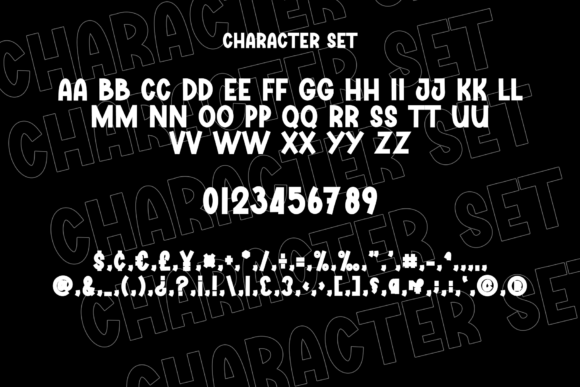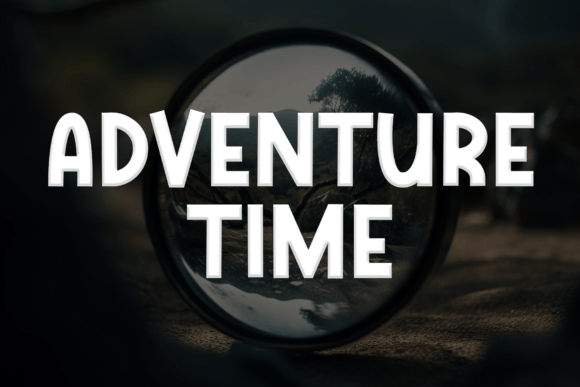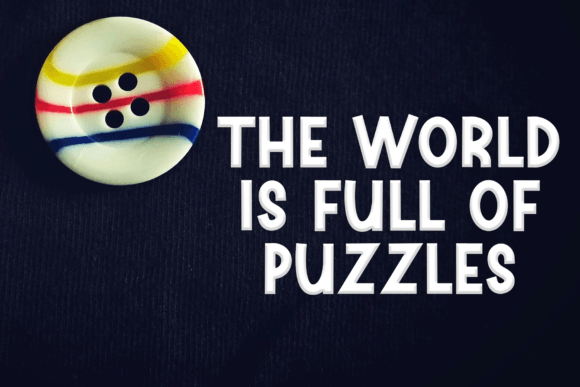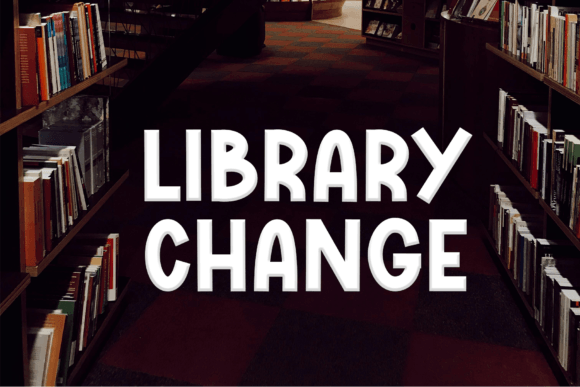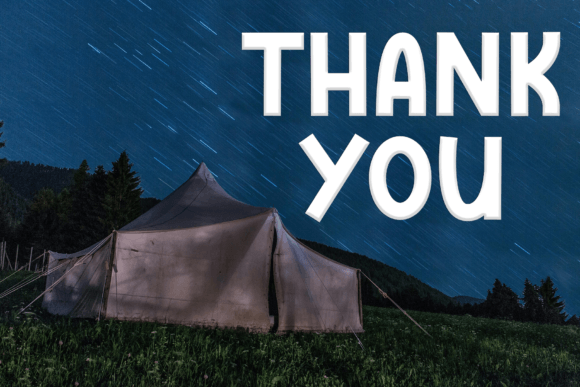
Introducing Bold Type Font: The Perfect Choice for Cheerful Designs
Are you looking for a font that can add a touch of fun and quirkiness to your designs? Look no further than Bold Type Font! This display font is perfect for creating cheerful and eye-catching designs that are sure to grab attention. In this article, we’ll take a closer look at Bold Type Font and explore its features, benefits, and uses.
What is Bold Type Font?
Bold Type Font is a fun and quirky display font that’s designed to add a touch of personality to your designs. It’s perfect for creating cheerful and upbeat designs that are suitable for a wide range of applications, from children’s themed designs to posters, flyers, and social media graphics.
One of the standout features of Bold Type Font is its unique and playful style. The font features bold lines, rounded edges, and a carefree vibe that’s sure to appeal to designers and crafters who want to create fun and engaging designs.
Key Features of Bold Type Font
So, what makes Bold Type Font so special? Here are some of its key features:
- PUA Encoded: Bold Type Font is PUA (Private Use Area) encoded, which means you can access all of the amazing glyphs and ligatures with ease. This makes it easy to create complex and visually appealing designs.
- Fun and Quirky: The font features a fun and quirky style that’s perfect for creating cheerful and upbeat designs.
- Children’s Themed Designs: Bold Type Font is especially suitable for children’s themed designs, especially when combined with bright colors.
Benefits of Using Bold Type Font
So, why should you choose Bold Type Font for your designs? Here are some of the benefits of using this font:
- Adds Personality: Bold Type Font adds a touch of personality to your designs, making them stand out from the crowd.
- Perfect for Children’s Designs: The font is especially suitable for children’s themed designs, making it a great choice for designers who create materials for kids.
- Easy to Read: Despite its bold and playful style, Bold Type Font is easy to read, making it perfect for creating designs that need to communicate a message.
- Versatile: The font can be used for a wide range of applications, from posters and flyers to social media graphics and more.
Uses of Bold Type Font
So, what can you use Bold Type Font for? Here are some ideas:
- Children’s Party Invitations: Create fun and colorful party invitations that are sure to delight kids and parents alike.
- Social Media Graphics: Use Bold Type Font to create eye-catching social media graphics that stand out from the crowd.
- Posters and Flyers: Create bold and attention-grabbing posters and flyers that promote a product, service, or event.
- Crafting Projects: Use Bold Type Font to add a touch of personality to your crafting projects, such as scrapbooking, card making, and more.
In conclusion, Bold Type Font is a fun and quirky display font that’s perfect for creating cheerful and eye-catching designs. With its unique and playful style, PUA encoding, and ease of use, it’s a great choice for designers and crafters who want to add a touch of personality to their designs. Whether you’re creating children’s themed designs, posters, flyers, or social media graphics, Bold Type Font is sure to make your designs stand out from the crowd.